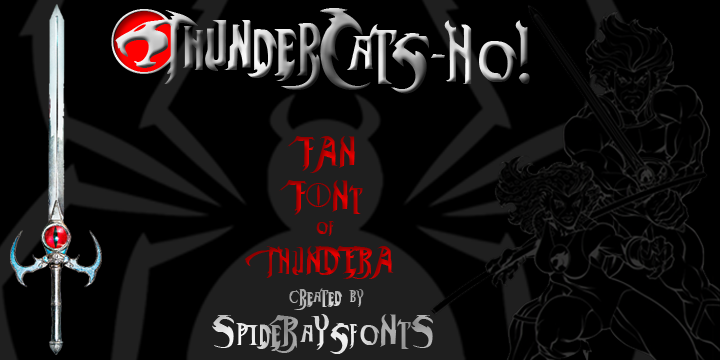
Based on the Children's TV show of the same name from the 1980's. Be sure to check out the 2011 remake... Thunder, ThunderCats-Ho! For the fully kerned OTF embeddable commercial version of this font please visit my Etsy Store @ http://etsy.me/2ejUcwT |